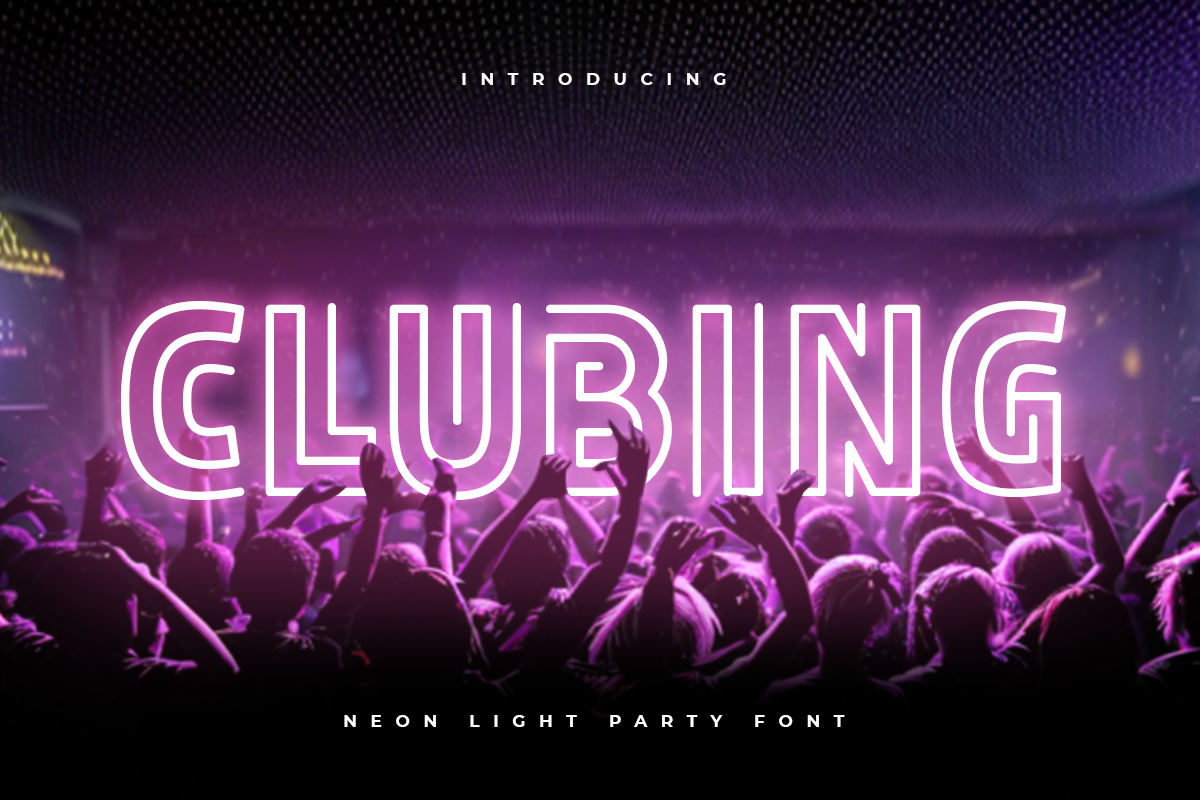
Clubing - Neon Light Party Font
Create electrifying designs with CLUBING - the ultimate neon light party font that makes your headlines glow with modern style. This unique display typeface features an inline shape design that brings a distinctive neon aesthetic to your projects. Perfect for headlines, titles, and any typography that needs to command attention and stand out from the crowd. CLUBING delivers modern appeal with a unique style crafted specifically for projects that demand visual impact. Whether you're designing for...